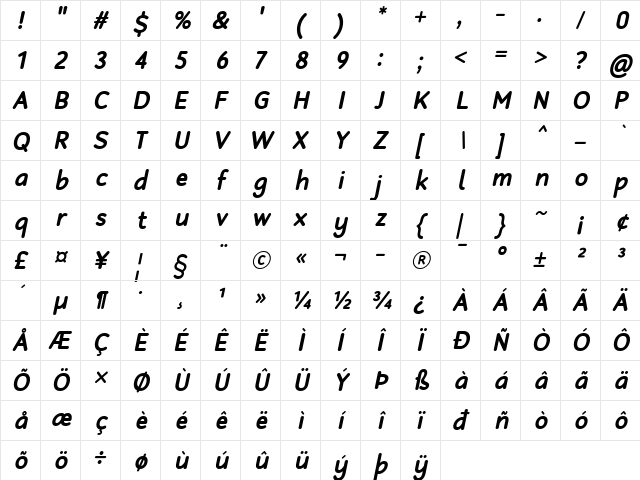
Robaga Rounded Bold Italic Font Preview
Design Context for Robaga Rounded Typeface
Robaga Rounded softens its letterforms with rounded terminals, giving it an approachable, friendly quality that works well in consumer-facing and digital contexts. The slanted form adds forward momentum and visual energy. Its bold stroke weight gives it real presence on the page.
A natural fit for tech startups, health and wellness brands, children's products, and friendly consumer apps.
Font Pairing: Pairs well with a rounded or humanist sans for body copy, maintaining the friendly tone without relying on Robaga Rounded to carry extended reading.
Pro Tip: Pair Robaga Rounded with a geometric sans for a balanced system — the rounded softness works as a warm counterpoint to harder-edged companions.